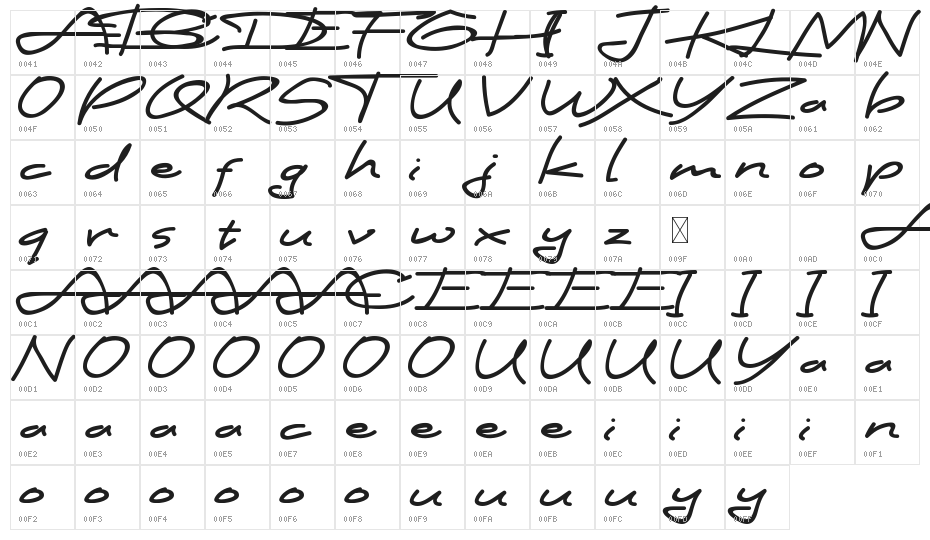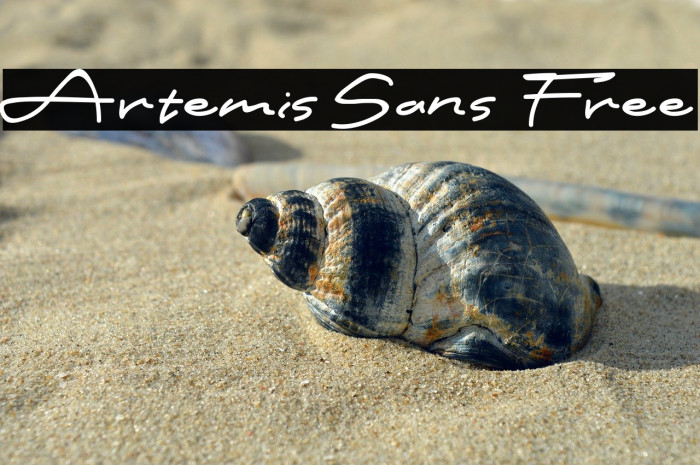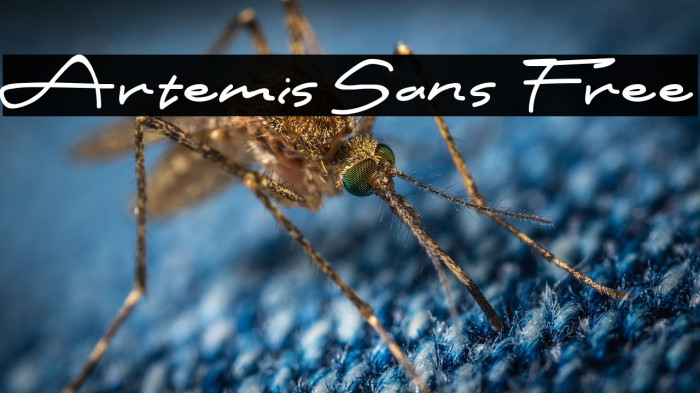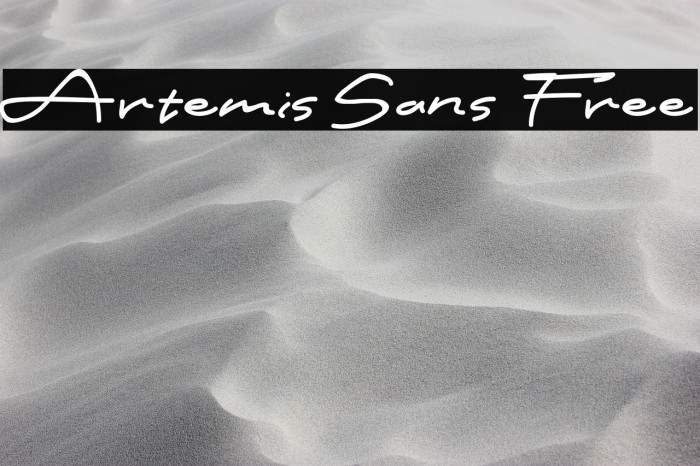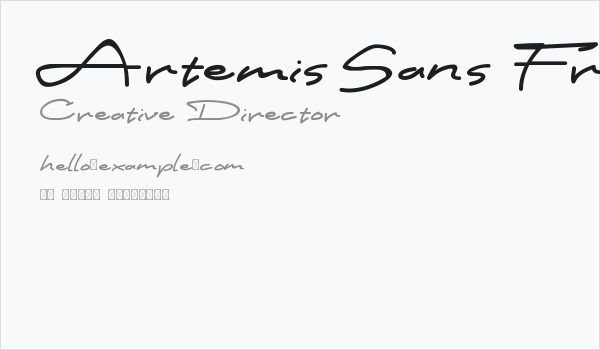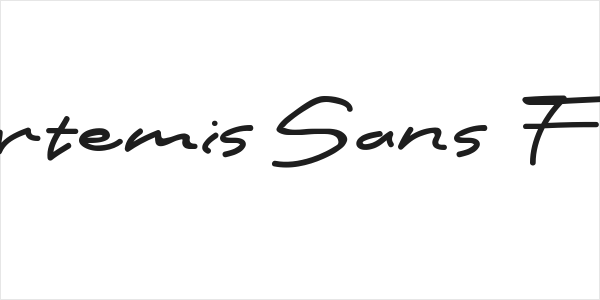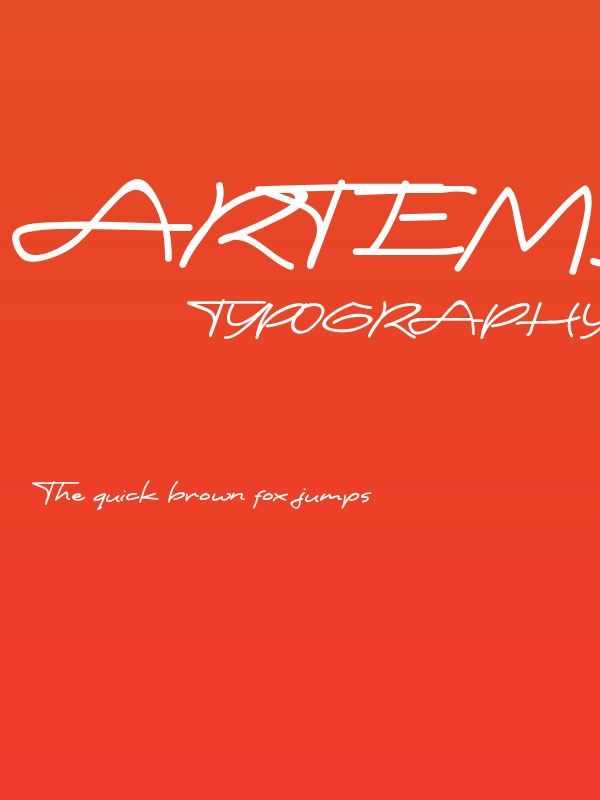
Artemis Sans Free Font
Artemis Sans Free Description
This font features a dynamic and flowing script style, characterized by its elegant and fluid letterforms. The uppercase letters exhibit a sense of movement with their elongated and slightly slanted strokes, while the lowercase letters maintain a consistent rhythm and smooth curves. The overall design is reminiscent of handwriting, offering a personal and artistic touch. The font's unique style is suitable for creative projects that require a personal and expressive feel. Its distinctive appearance makes it ideal for branding, invitations, and artistic designs.
| Use Case | Logos, Invitations, Artistic designs |
| Proposed Projects | Ideal for branding, invitations, artistic designs, and any project requiring a personal touch. |